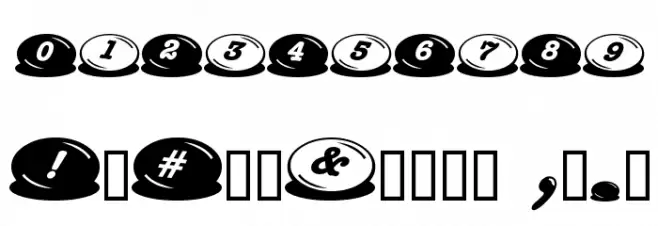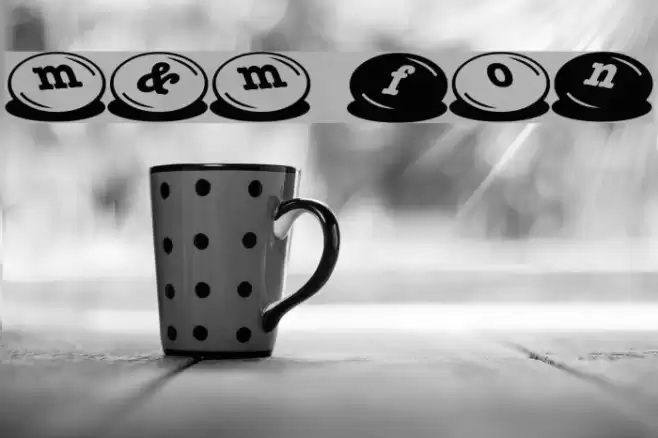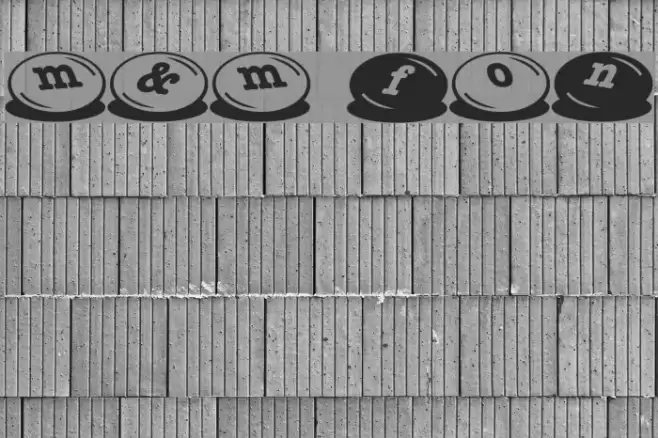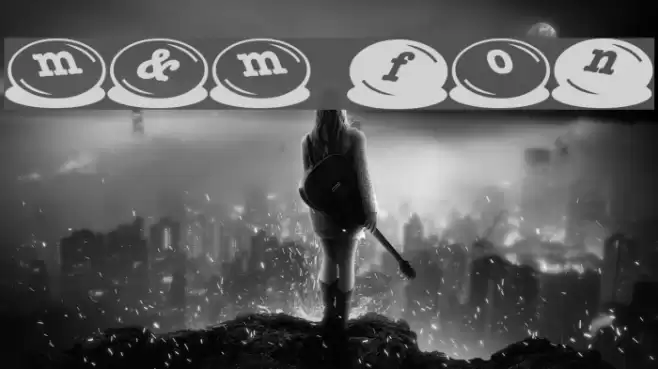
m&ms Font
m&ms Description
This playful and decorative font features characters enclosed in circular shapes, reminiscent of candy or playful buttons. The letters are bold and rounded, giving a sense of fun and whimsy. Each character is set within a circular border, alternating between black and white backgrounds, which adds a dynamic visual contrast. The font includes both uppercase and lowercase letters, numbers, and a selection of special characters. Its unique style makes it stand out, ideal for projects that require a touch of creativity and playfulness.
| Overall Style | Playful, Whimsical |
| Use Case | Logos, Headlines, Posters |
| Proposed Projects | Ideal for children's book covers, playful branding, party invitations, and creative posters. |